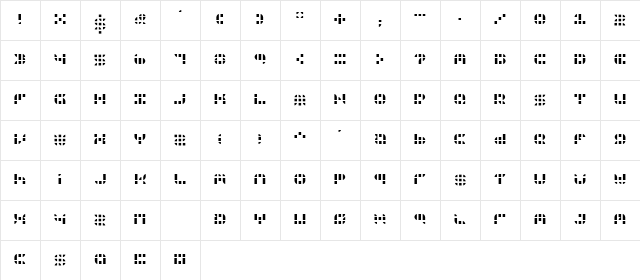
9sqgrd Thin
9sqgrd is a composed and adaptable typeface that performs quietly and consistently across a wide range of design contexts. The delicate stroke weight brings airiness and refinement to layouts.